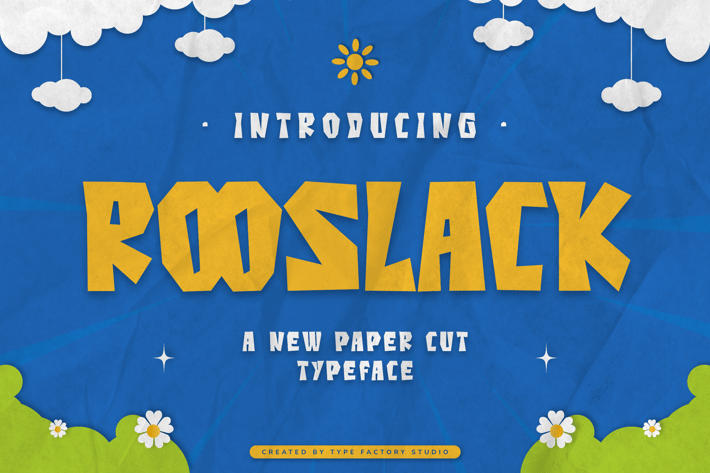
Rooslack - Paper Cut Typeface
Rooslack - Paper Cut Typeface is a unique, handcrafted font inspired by traditional paper cutouts. This charming, vintage-style typeface adds a personal touch to various design projects. Suitable for logo design, branding and identity, print design (posters, flyers, brochures), digital designs (social media, web, email), signage, advertising, and packaging design